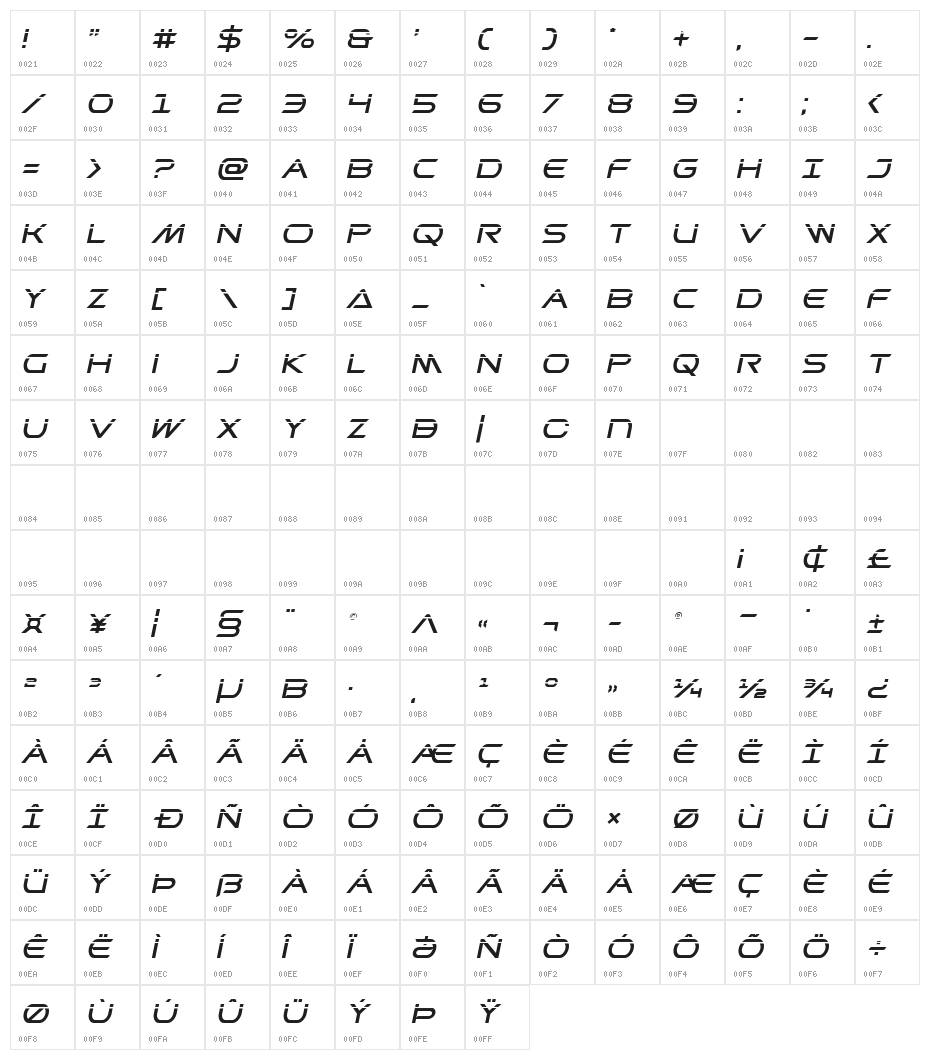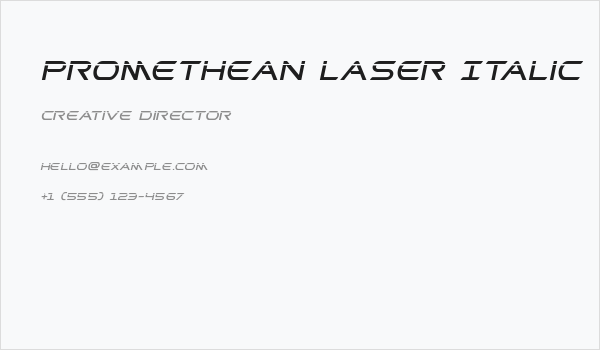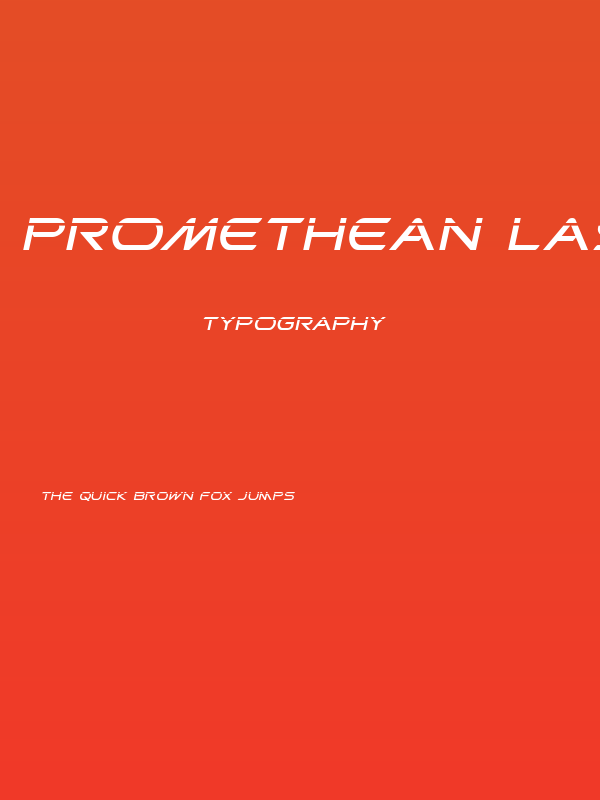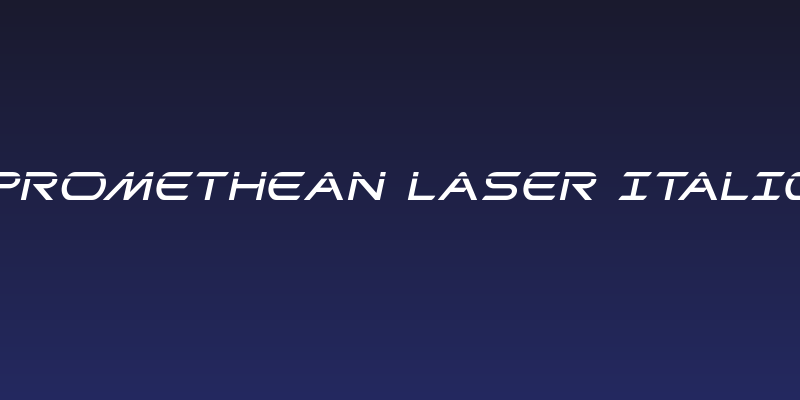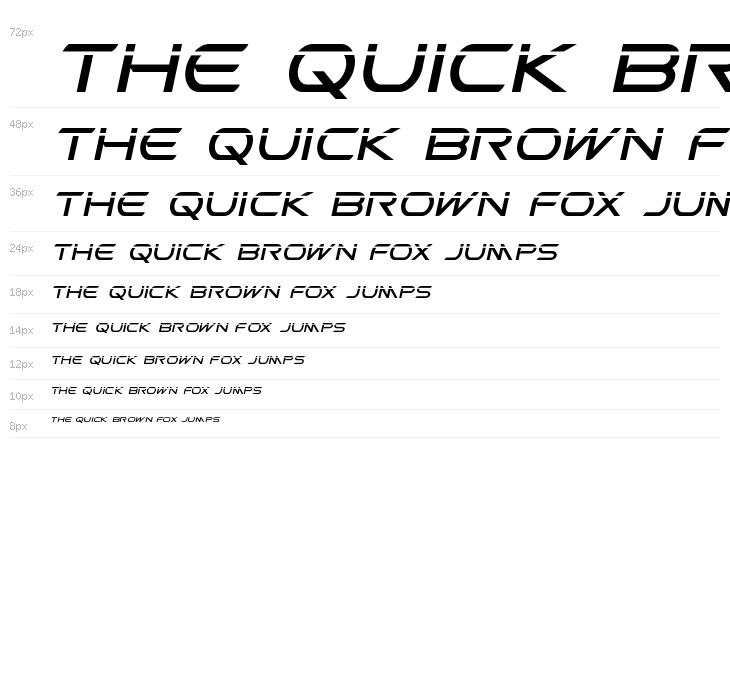
Promethean Laser Italic Font
Promethean Laser Italic Description
This font features a futuristic and dynamic design with a distinct italic slant, giving it a sense of motion and speed. The characters are sleek and angular, with sharp edges and a consistent stroke width that conveys a modern, tech-inspired aesthetic. The uppercase and lowercase letters maintain a uniform style, while the numerals and special characters integrate seamlessly, enhancing the font's cohesive appearance. Its unique style makes it suitable for projects that require a contemporary and energetic look.
| Proposed Projects | Ideal for technology branding, sci-fi themed designs, video game interfaces, and modern advertising campaigns. |